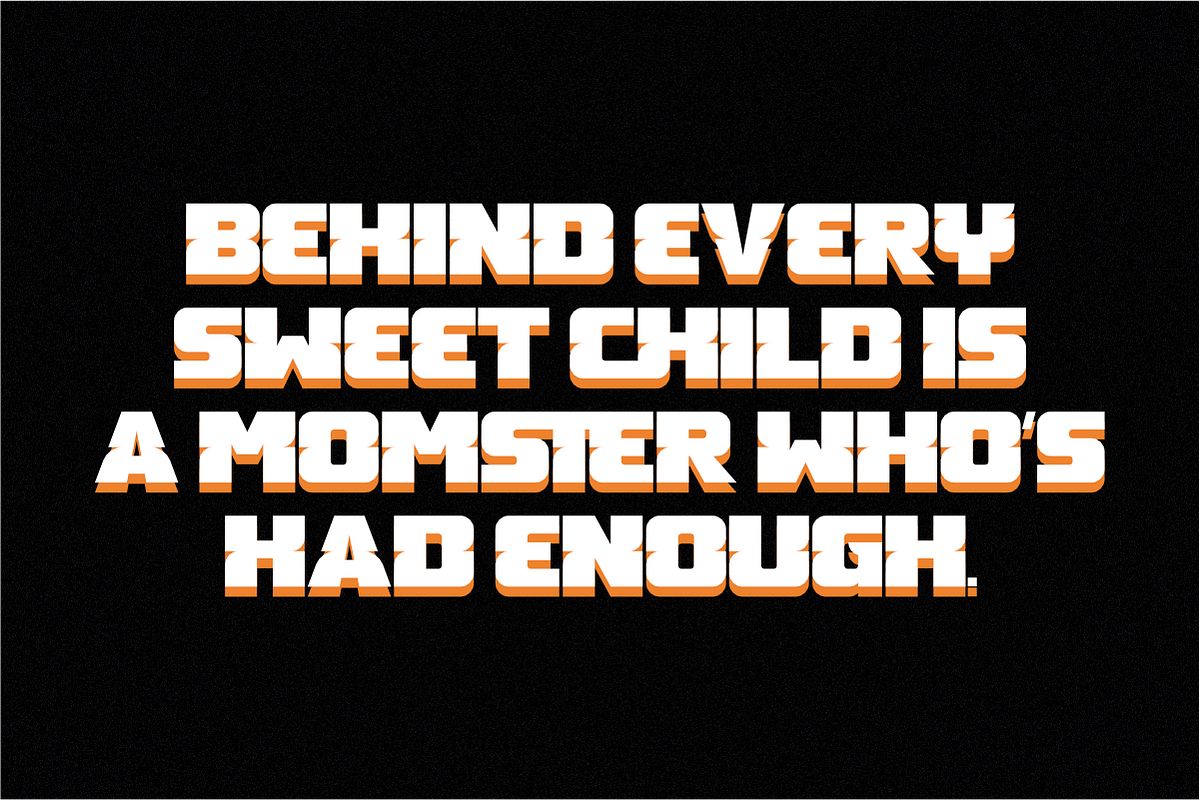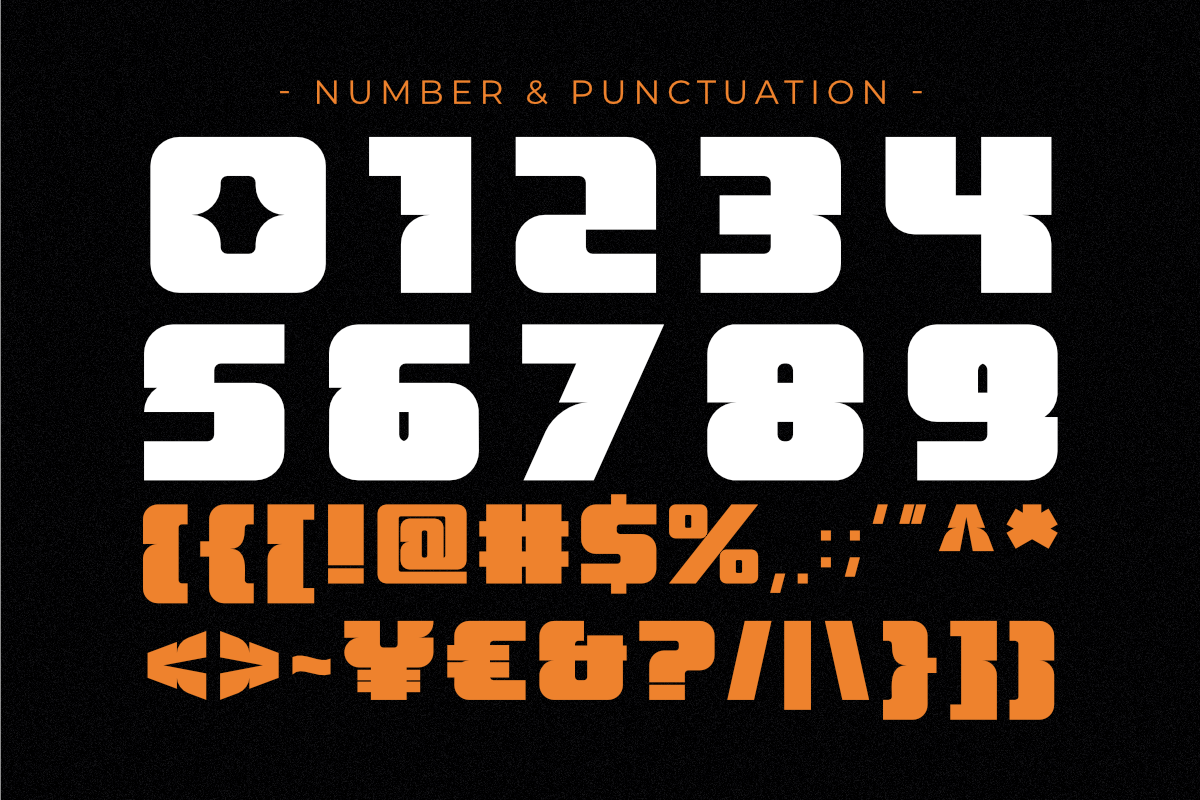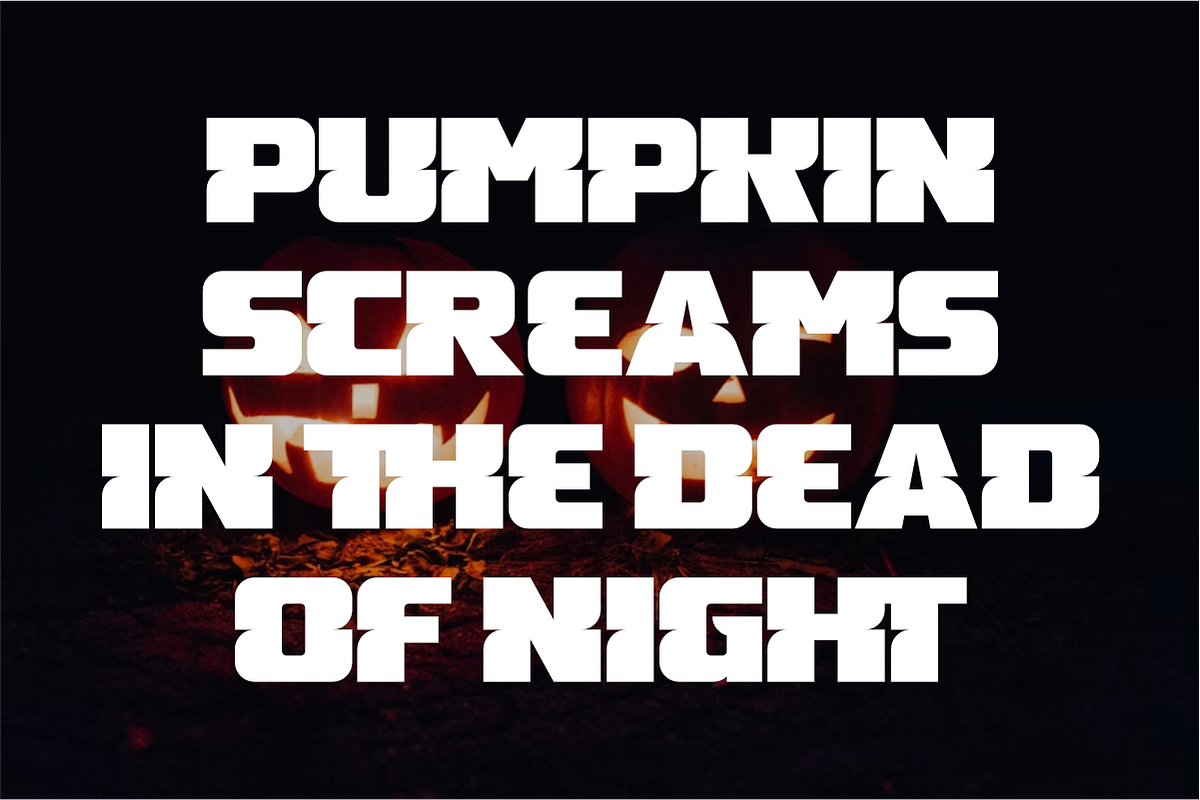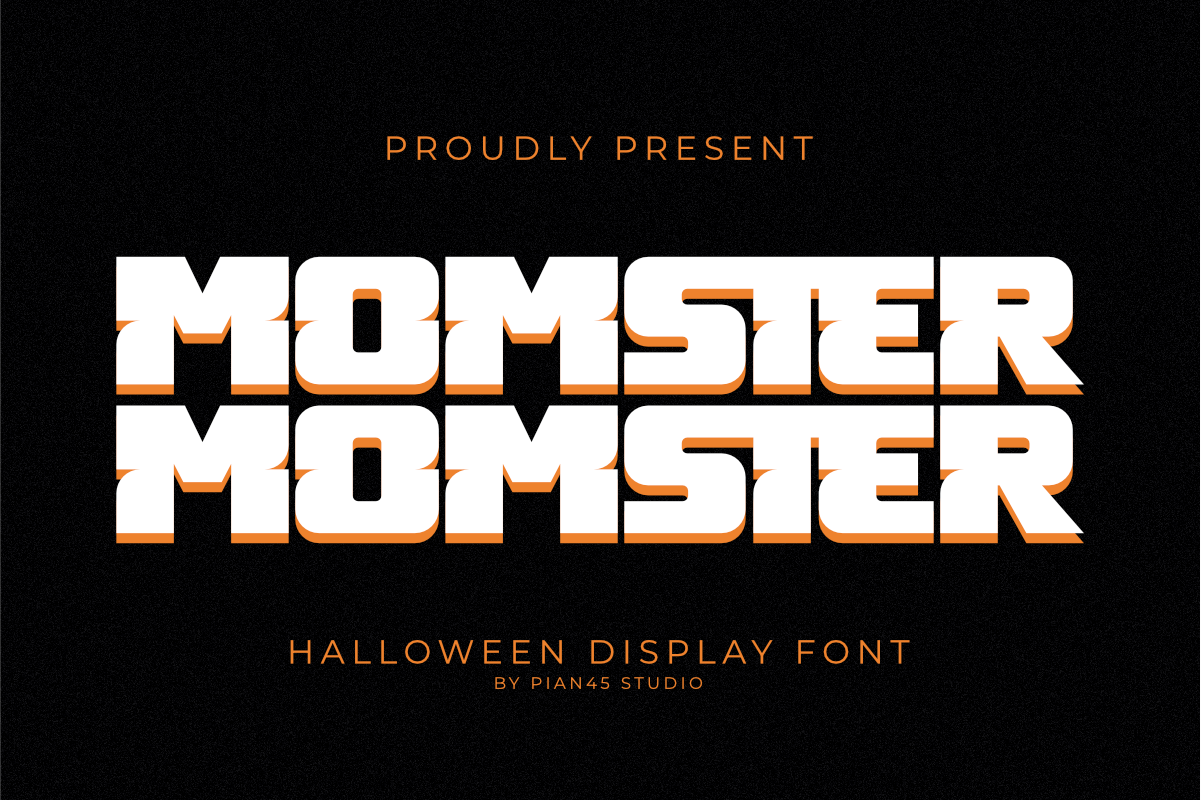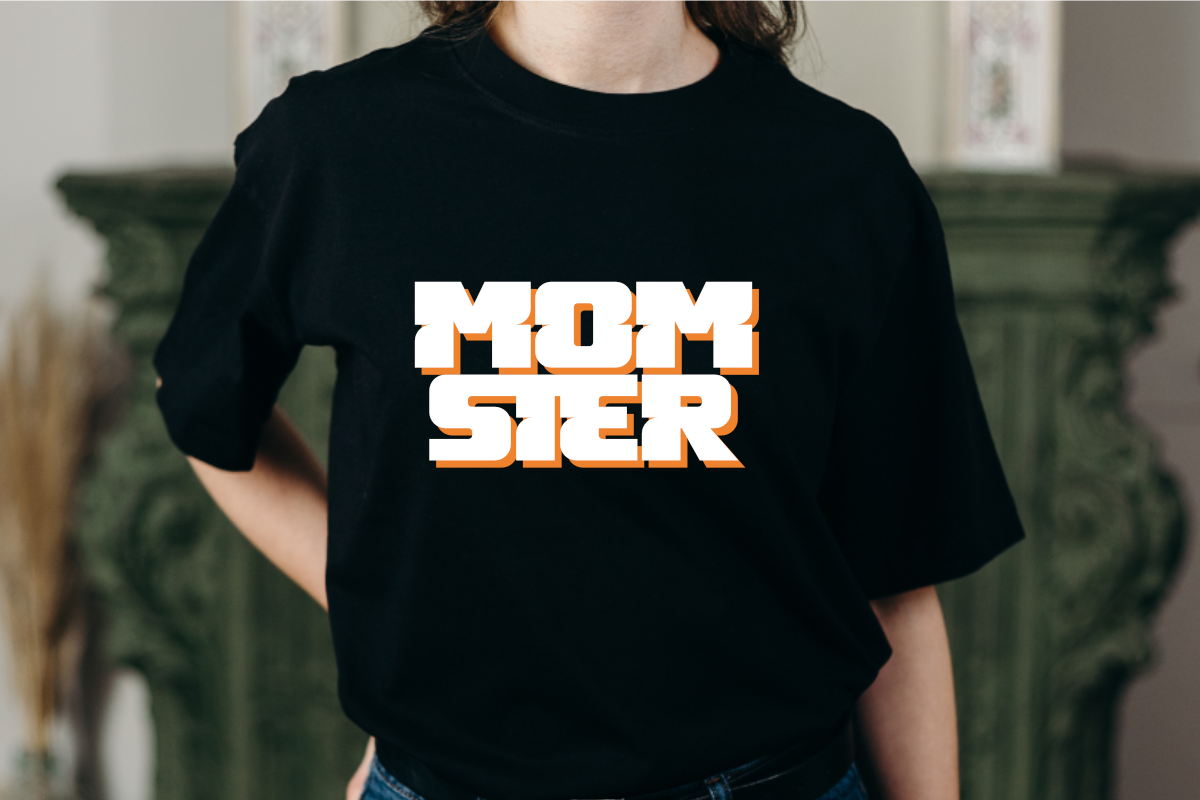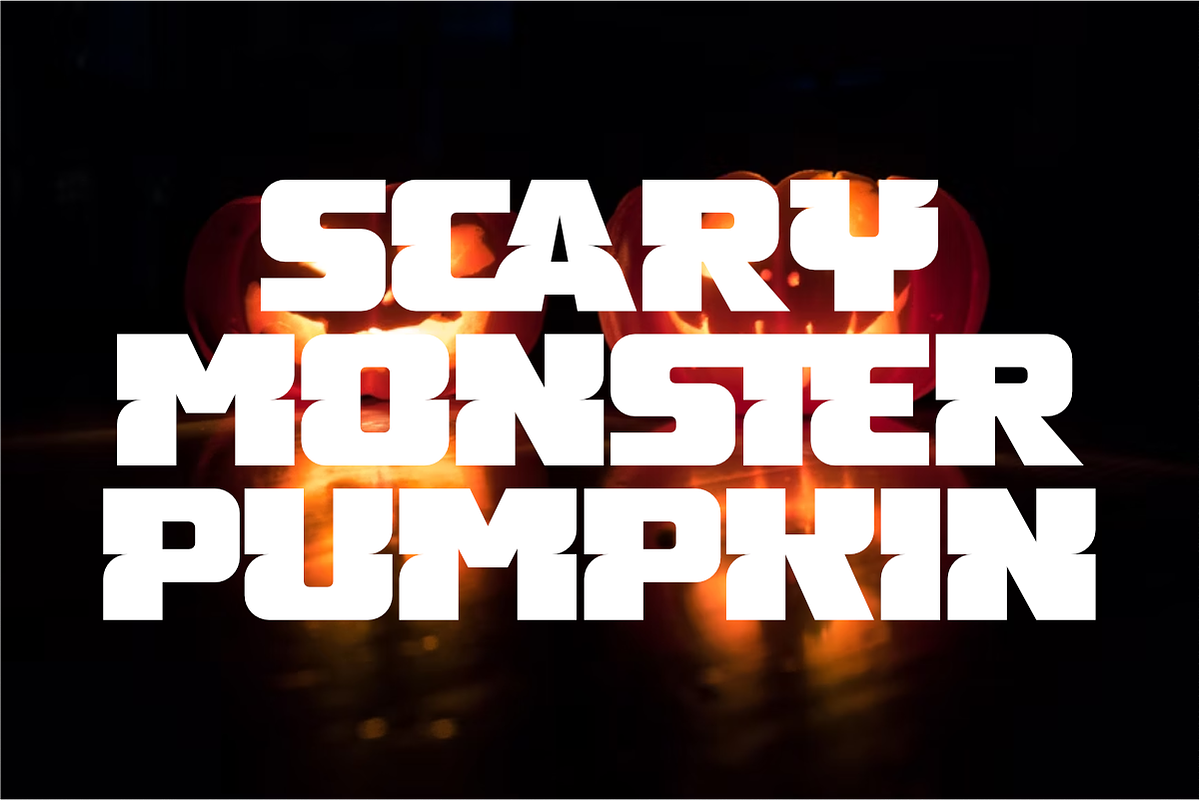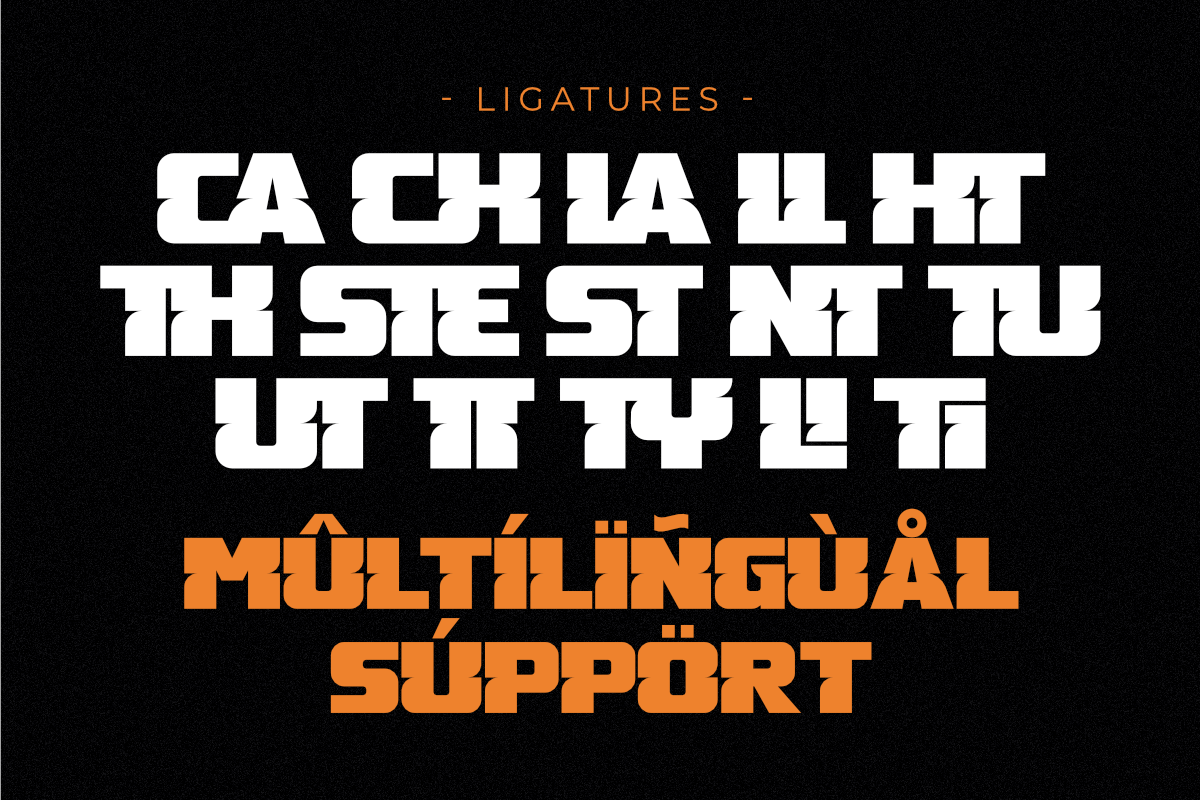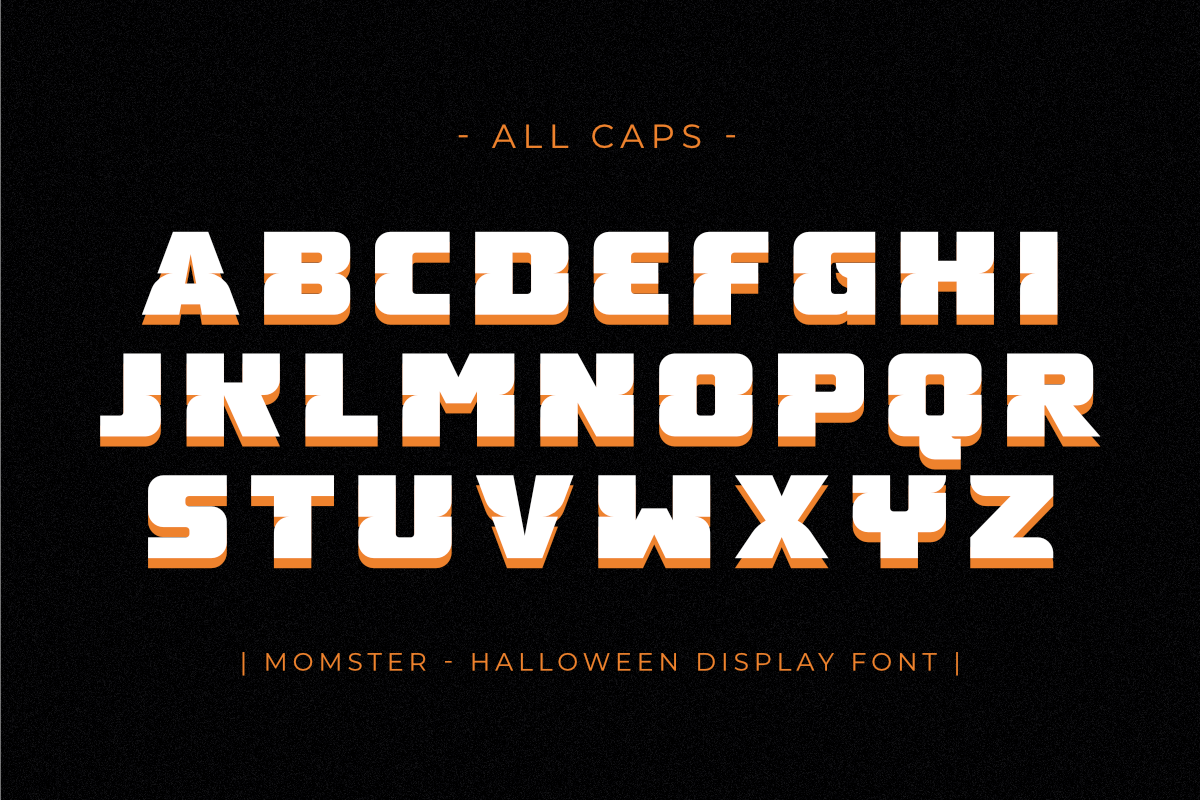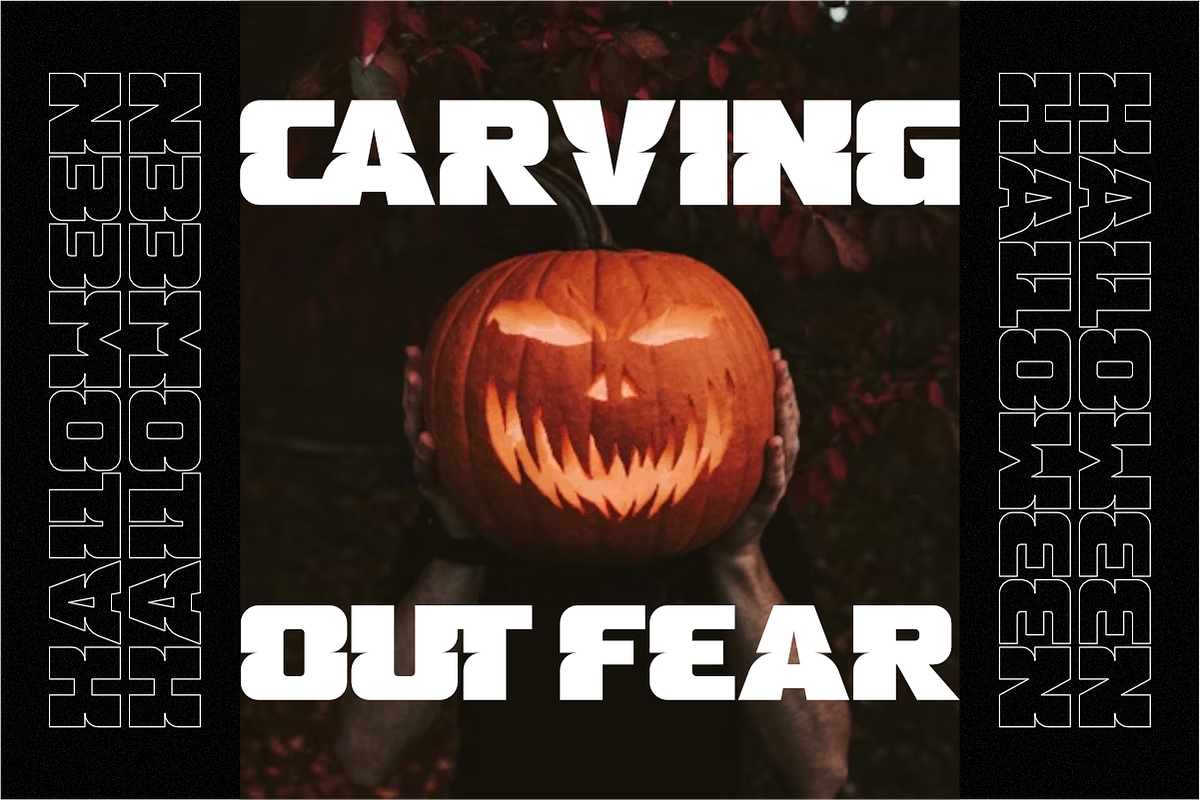
Momster - Halloween Display Font
Momster is a bold, condensed, and Halloween display font with a powerful, clean-cut aesthetic. Its thick, blocky letterforms are perfect for creating a strong visual impact, while the subtle, carved details on its edges add a spooky and textured feel. This versatile font is an excellent choice for movie posters, event invitations, scary branding, and any project that needs a clean yet chilling look.